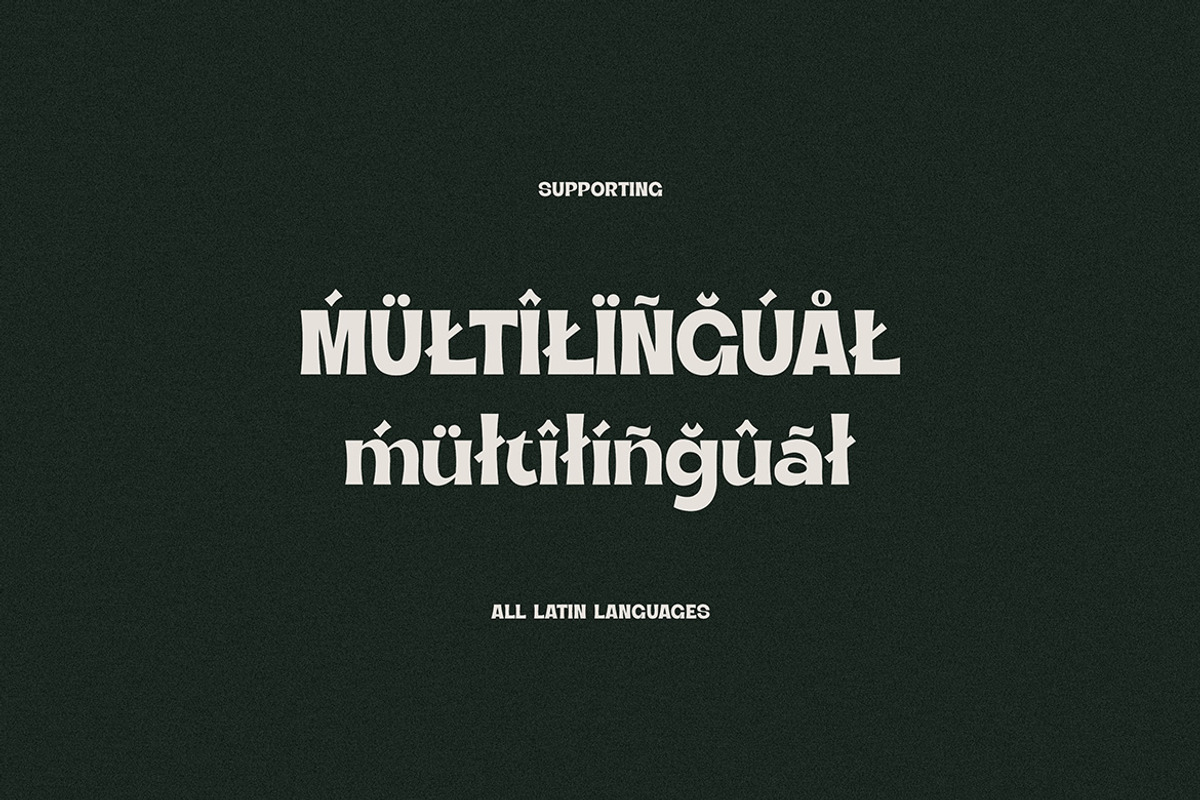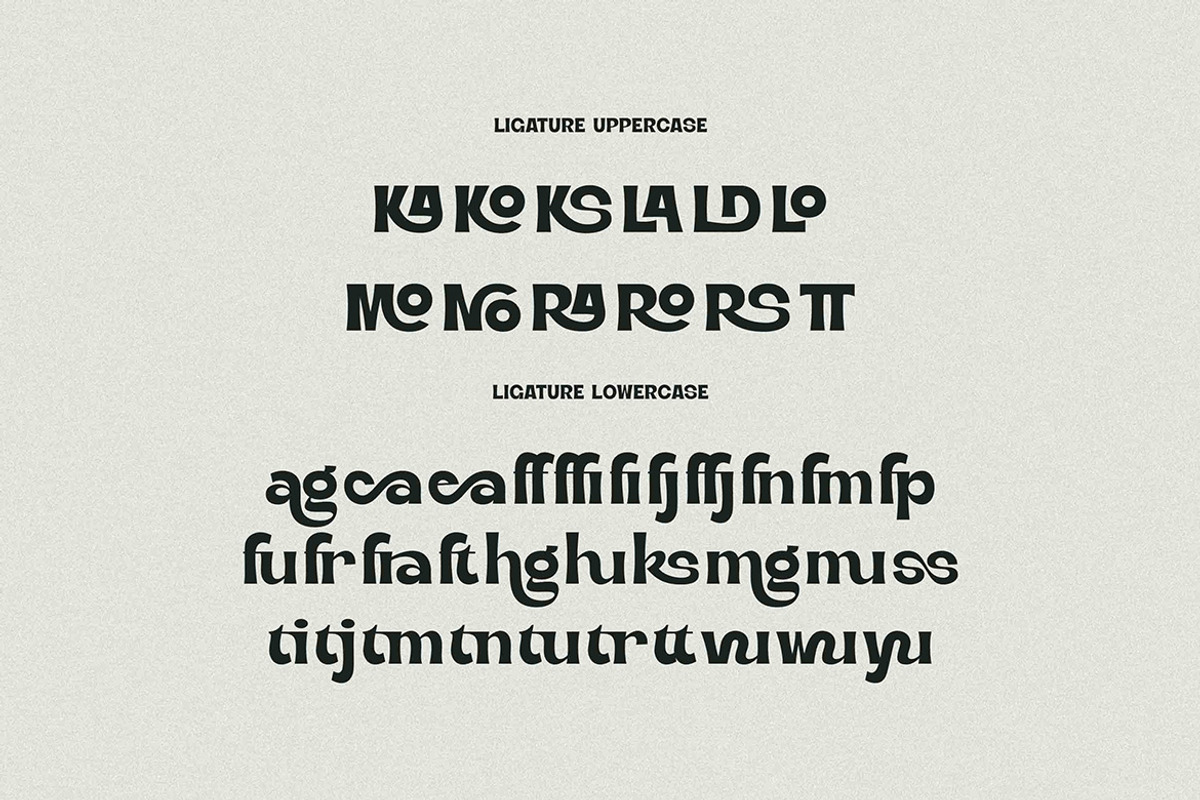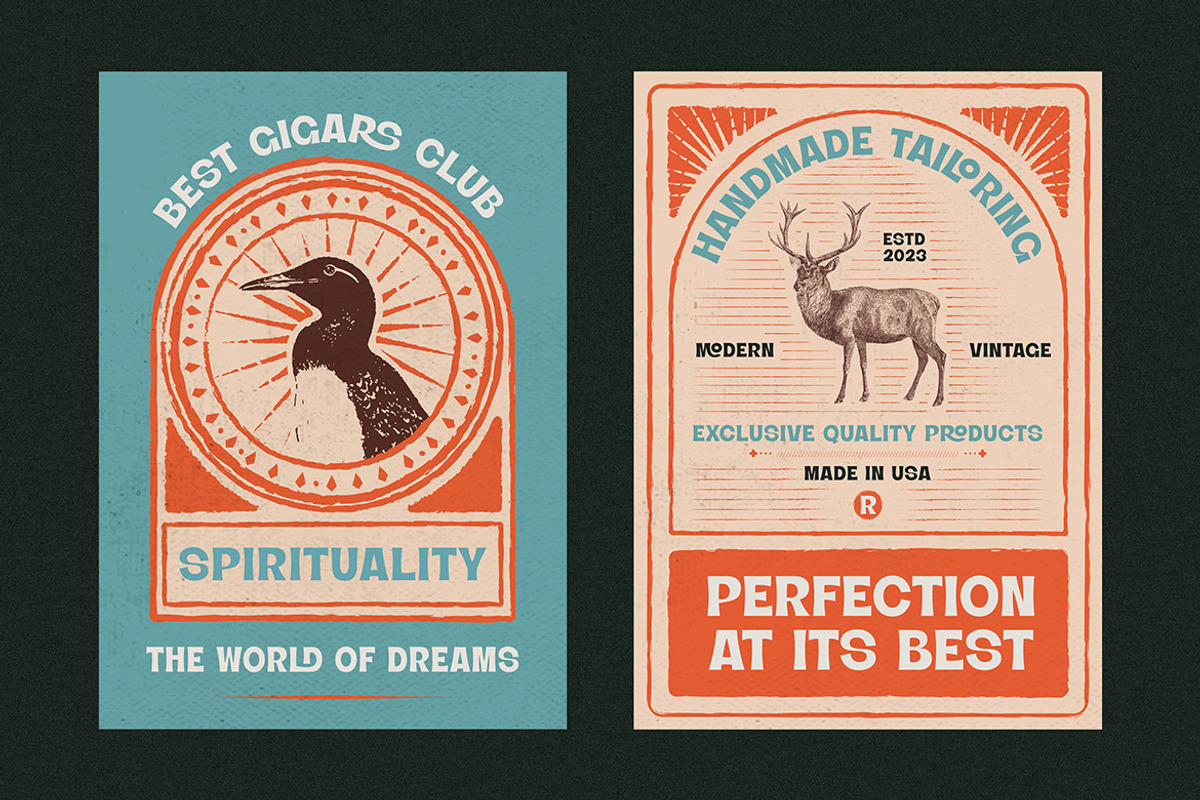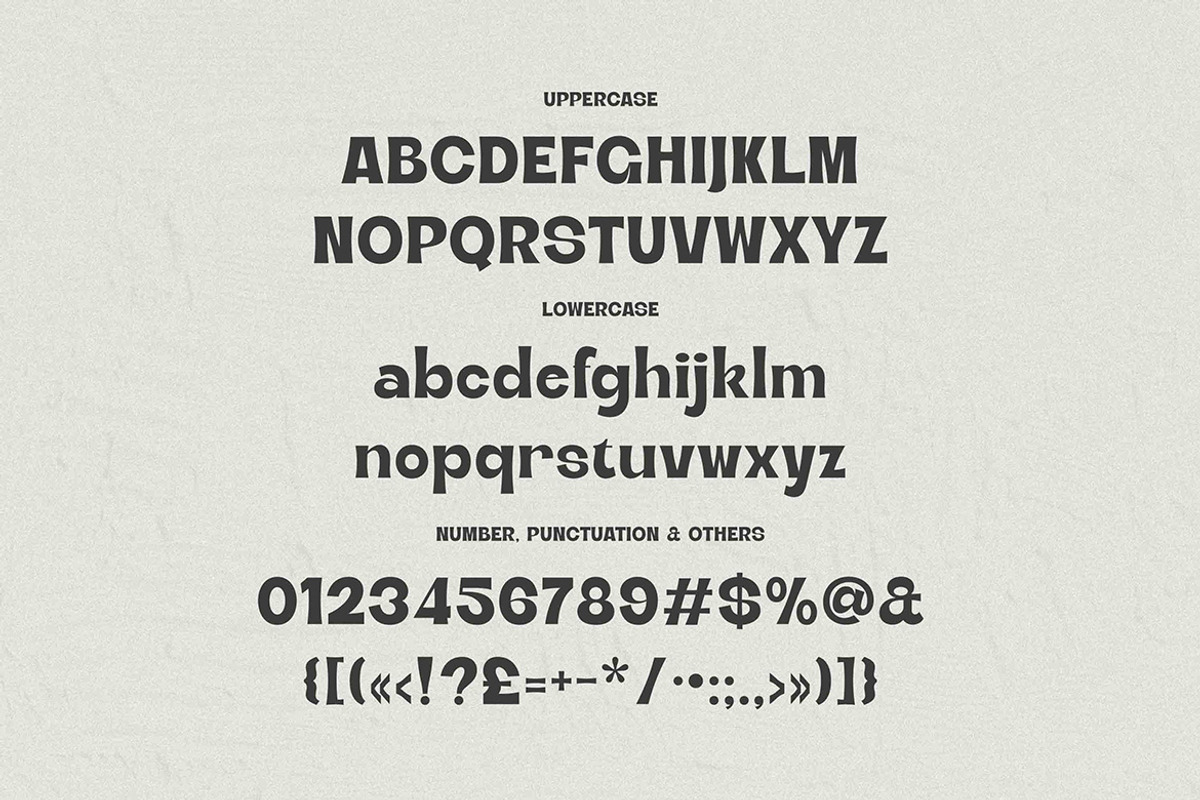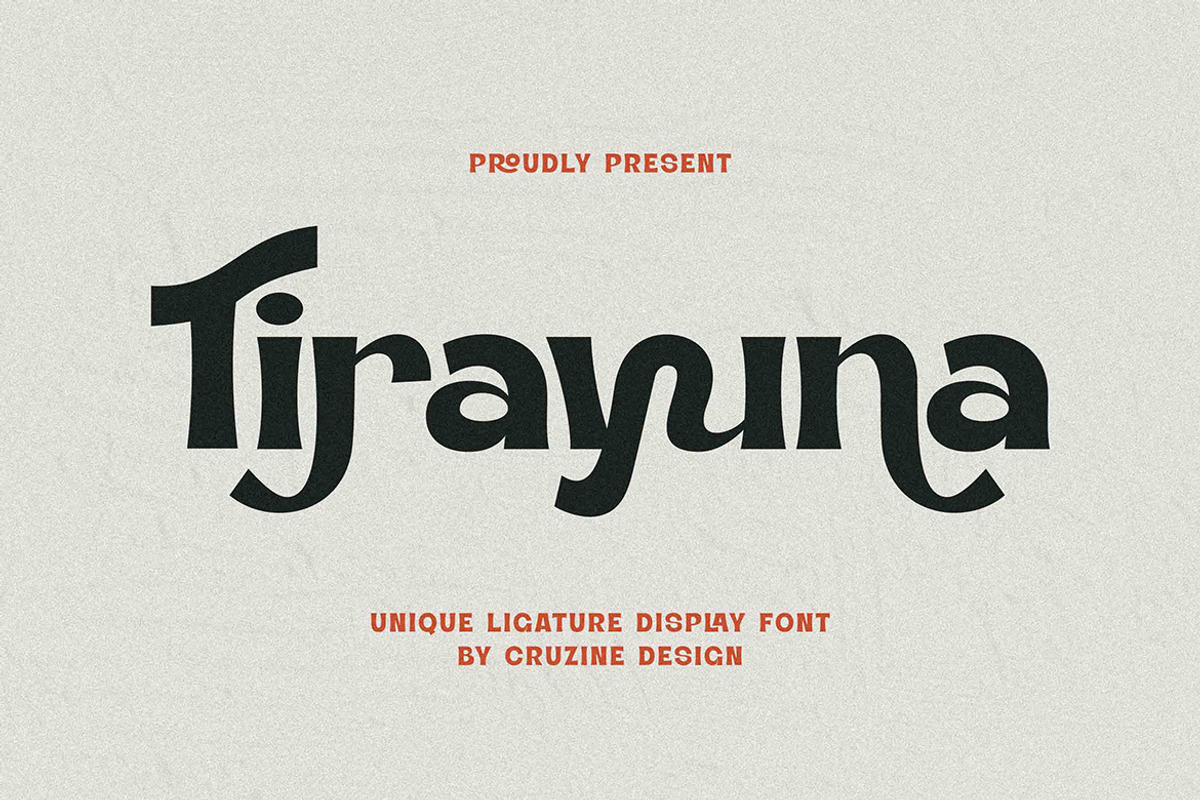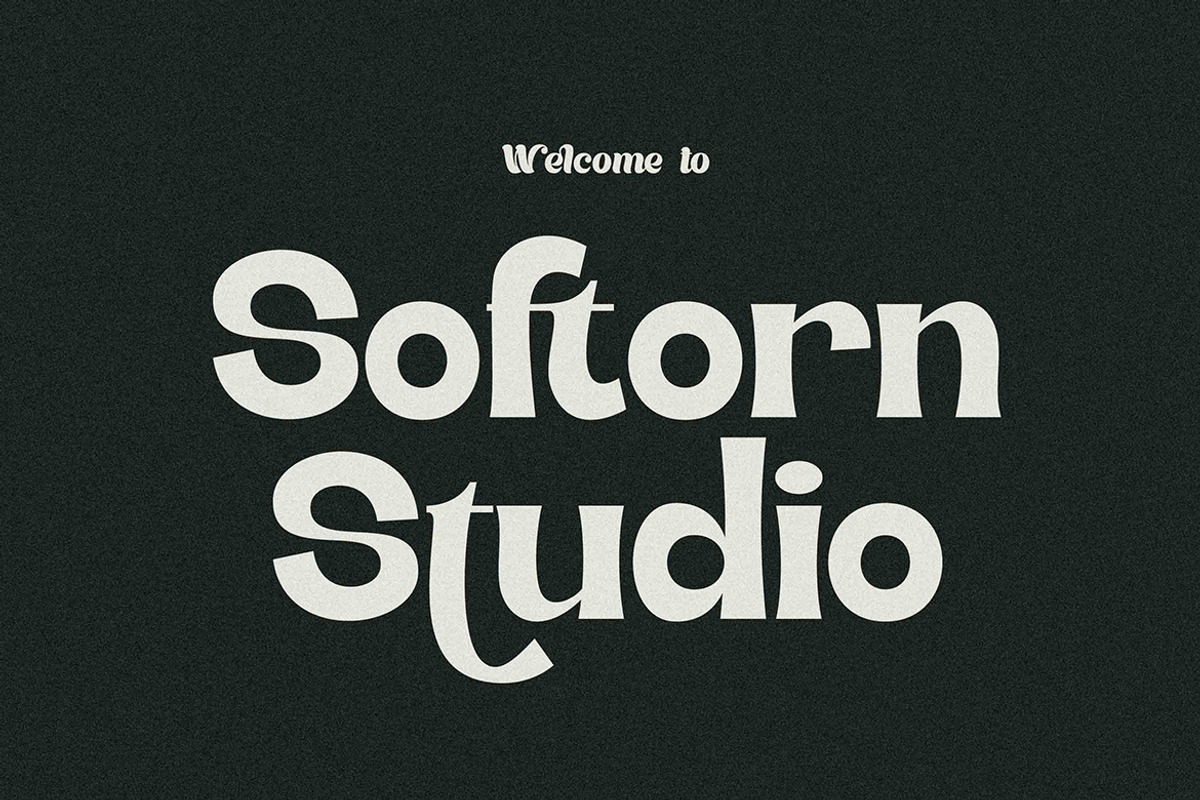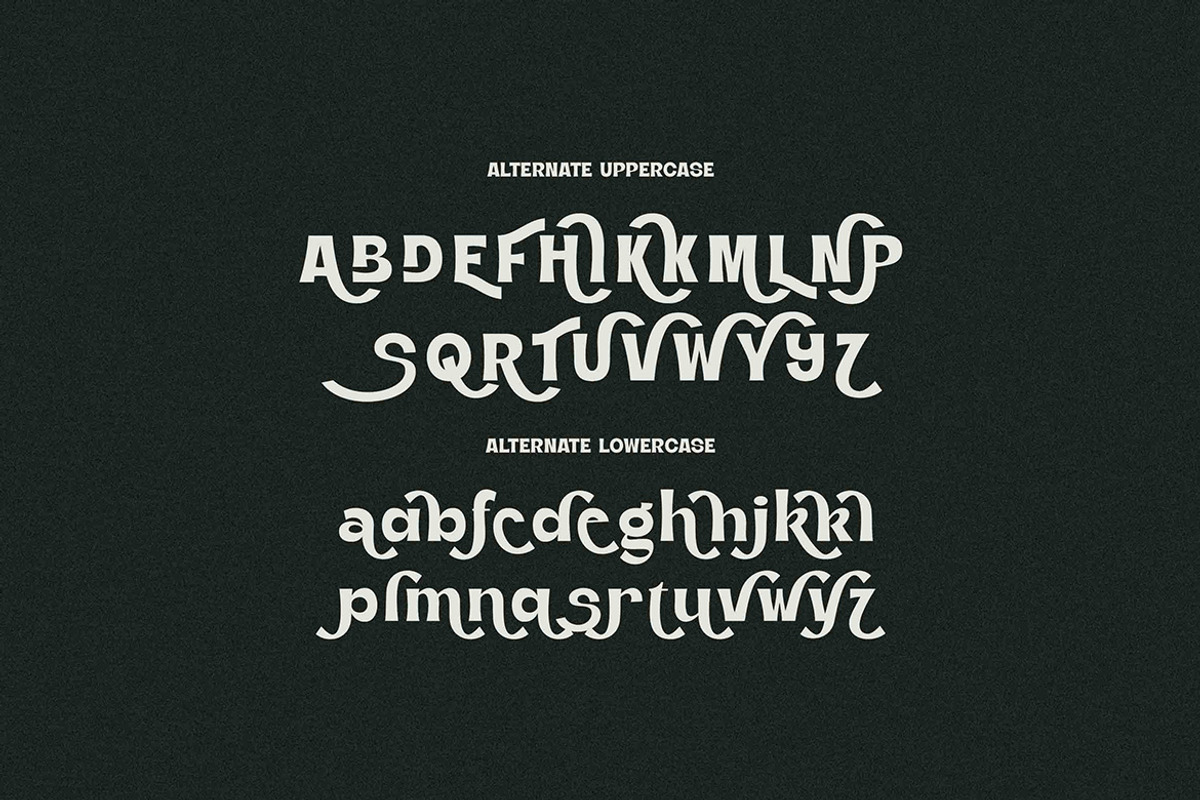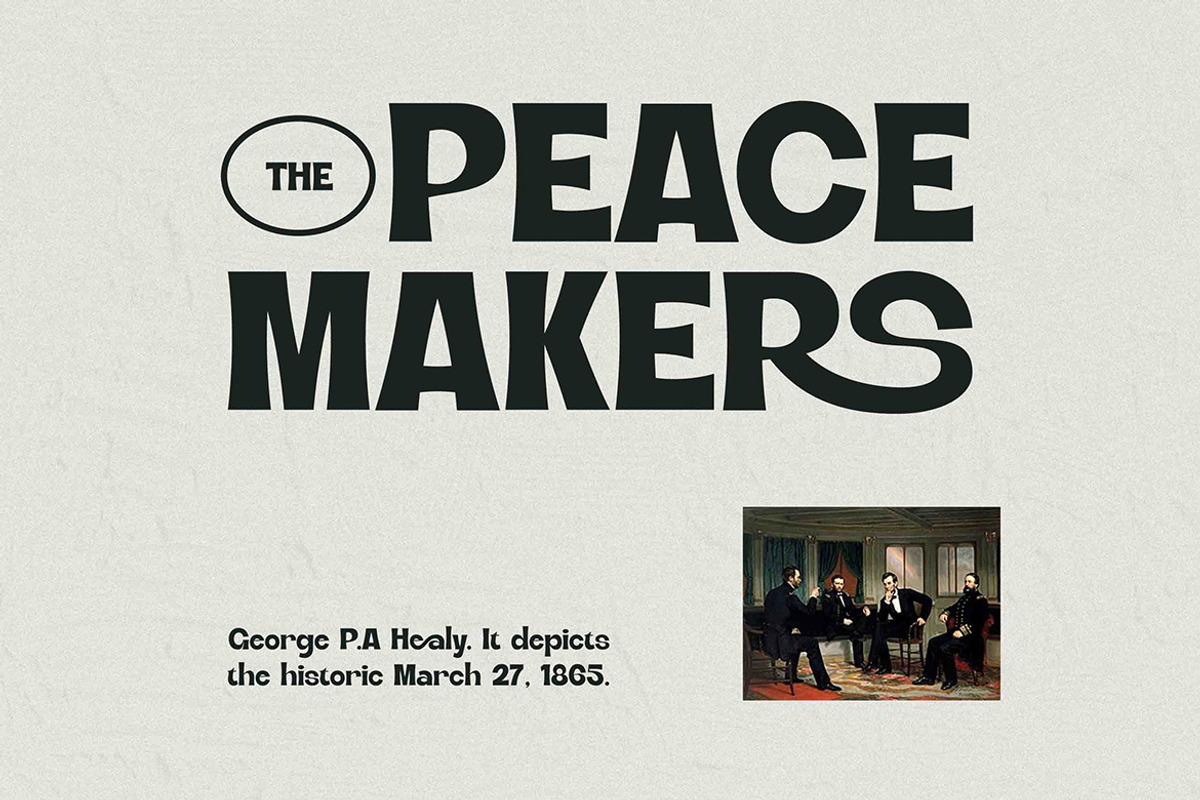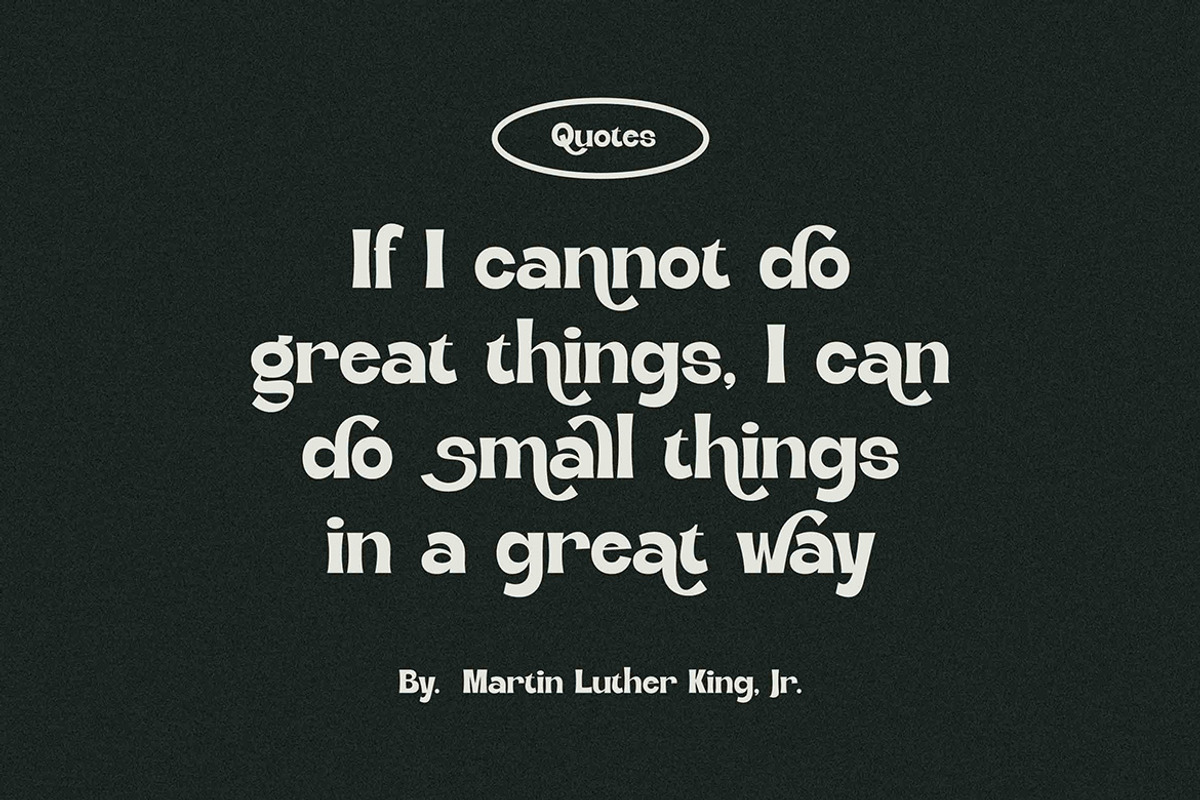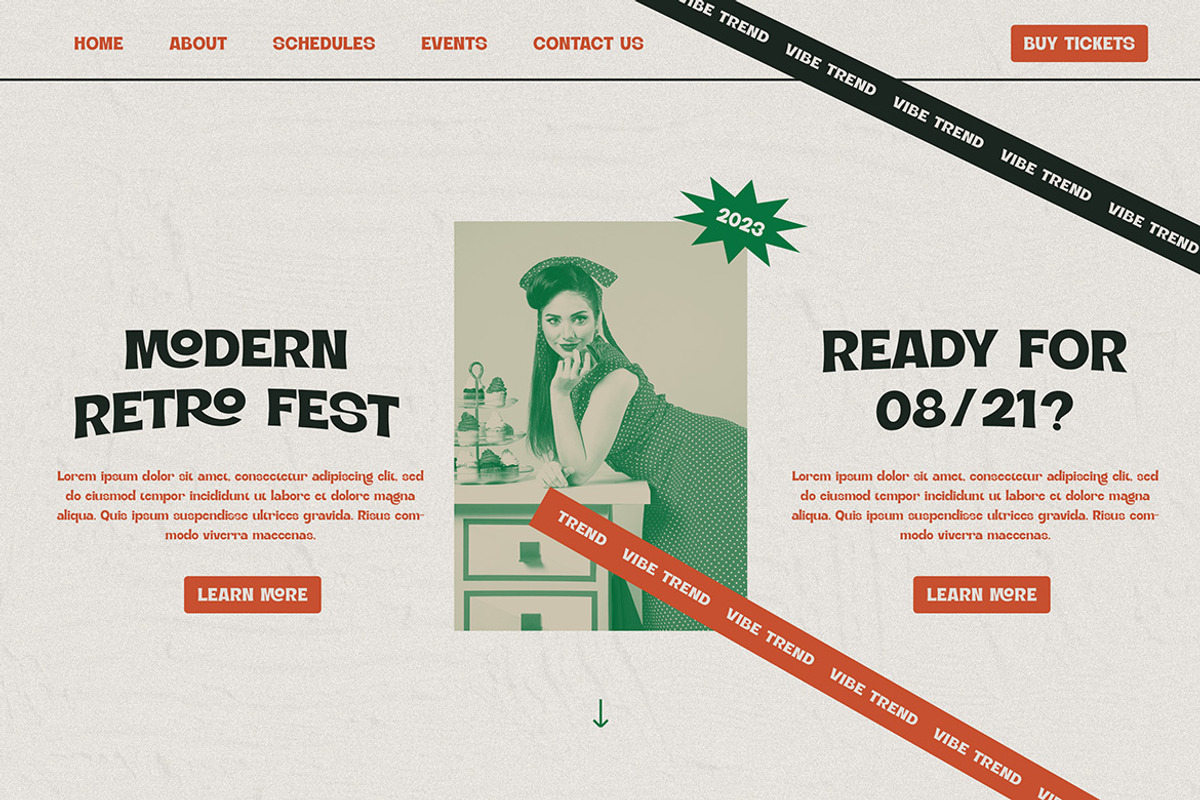
Tirayuna Bold Retro Serif
Funny, playful, bold, retro & modern style serif font for your new creative projects. Stylish, decorative and playful style on Tirayuna serif font will be great for any retro or creative branding project. Lot of alternates and ligatures will help you to create unique and original logo design or website header! Enjoy :)
- Alternate characters
- Lot of ligatures
- Great for modern branding projects!